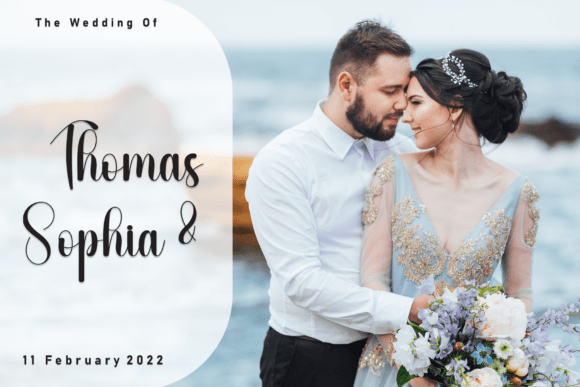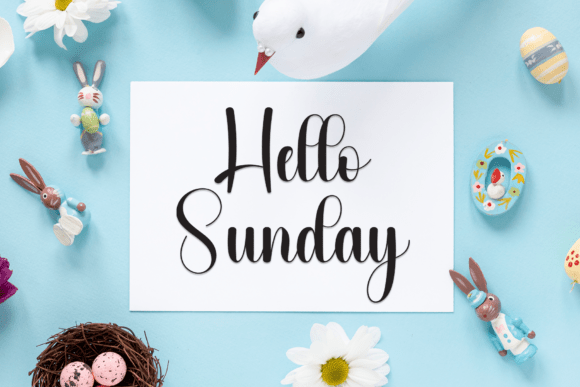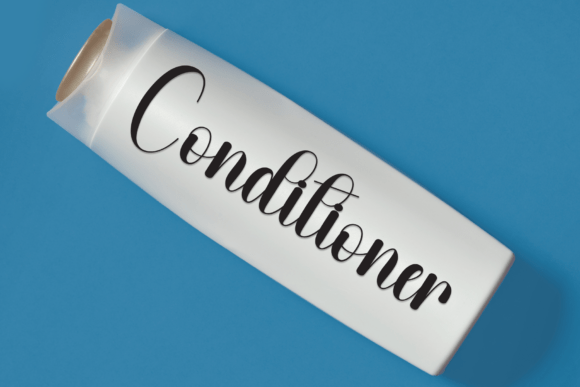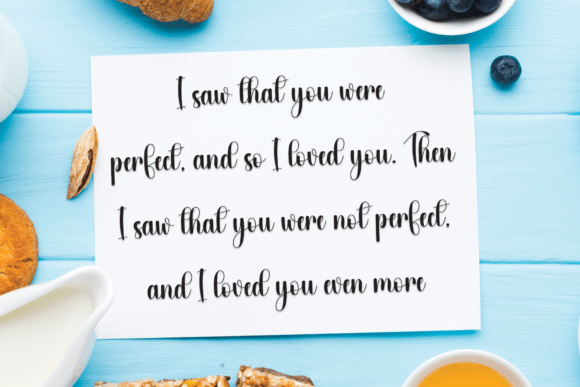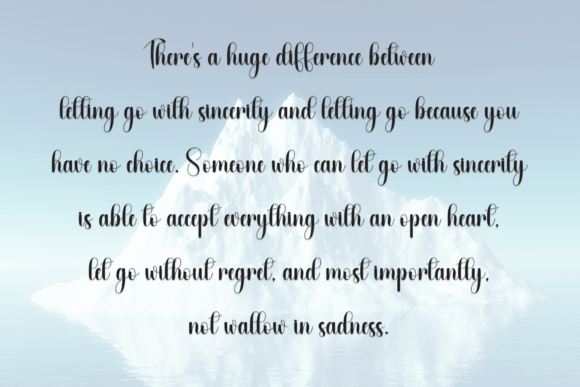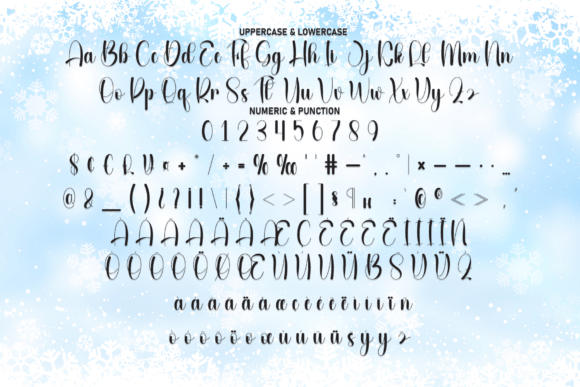
Frosty Font: Adding a Touch of Whimsy to Your Designs
Immerse your audience in a magical realm of allure and whimsy with the enchanting attributes of the Frosty Font. This handwritten script font is designed to bring a lighthearted touch to your designs, making it perfect for wedding invites, greeting cards, and any project that demands a sprinkle of joy.
The Charm of Frosty Font
The warm, inviting aesthetic of Frosty Font breathes vitality into each stroke and contour, seamlessly fusing a gentle charm with spontaneity. The font’s cheerful and amiable persona promises to bring a grin on any receiver’s face, providing a distinctive tone to every story it graces. Whether you’re a designer, crafter, or DIY enthusiast, Frosty Font is an excellent choice for adding an emotional depth to your creations.
What Makes Frosty Font Special?
- Handwritten Script: Frosty Font boasts a beautiful, handwritten script that exudes warmth and personality.
- Whimsical Touch: The font’s playful and whimsical nature makes it perfect for designs that require a lighthearted touch.
- Emotional Depth: Frosty Font adds an emotional depth to your designs, making them more relatable and engaging.
- Versatility: This font is suitable for a wide range of projects, from wedding invites and greeting cards to social media graphics and blog posts.
Uses for Frosty Font
Frosty Font is an incredibly versatile font that can be used in various design projects. Here are some ideas to get you started:
- Wedding Invites: Add a touch of whimsy and romance to your wedding invites with Frosty Font.
- Greeting Cards: Create heartfelt and personalized greeting cards for special occasions like birthdays, anniversaries, and holidays.
- Social Media Graphics: Use Frosty Font to create engaging social media graphics that showcase your brand’s personality.
- Blog Posts: Add a playful touch to your blog posts with Frosty Font, making them more readable and enjoyable.
Tips for Using Frosty Font
To get the most out of Frosty Font, here are some tips to keep in mind:
- Pair with Other Fonts: Experiment with pairing Frosty Font with other fonts to create a unique and visually appealing design.
- Play with Colors: Don’t be afraid to experiment with different colors to find the perfect combination that complements your design.
- Keep it Simple: Don’t overcomplicate your design. Frosty Font is perfect for simple, yet effective designs.